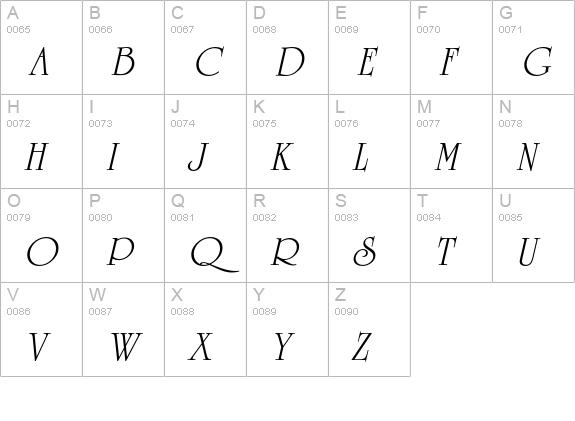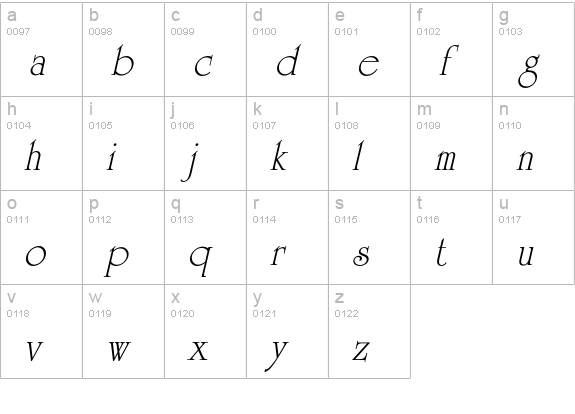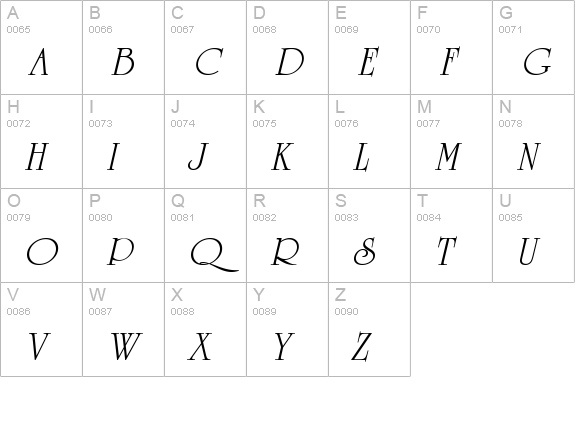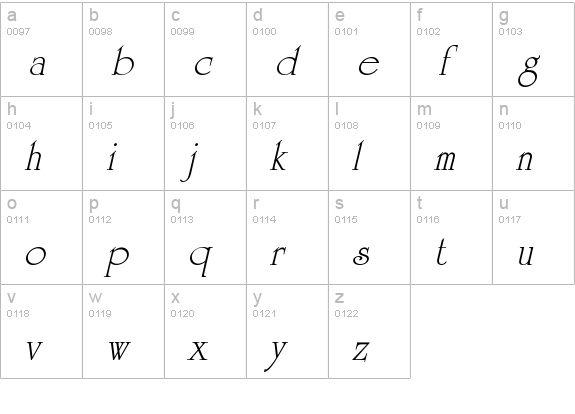
University Roman Std Italic is a distinctive, italic variant in the University typeface family \xE2\x80\x94 well suited to design and typography projects.
University Roman Std Italic is a timeless and elegant font that adds a touch of sophistication to any design project. With its slanted and graceful letterforms, this font effortlessly captures the essence of classic typography. Perfect for both print and digital media, University Roman Std Italic is ideal for conveying a sense of professionalism and refinement. Whether used in headlines, body text, or logos, this font exudes a sense of confidence and authority. One of the best things about University Roman Std Italic is that it is freely available to download at FontsMarket.com. Designers and enthusiasts alike can easily access this font and incorporate it into their creations without any cost. This makes it an accessible and valuable resource for anyone looking to elevate their design work. With its exquisite details and versatile nature, University Roman Std Italic is well-suited for a wide range of applications. From branding and advertising to editorial design and packaging, this font seamlessly blends tradition and modernity, making it a go-to choice for designers seeking to make a lasting impression. In conclusion, University Roman Std Italic is a sophisticated and versatile font that effortlessly combines classic elegance with contemporary design. Its availability as a free download at FontsMarket.com makes it an invaluable asset for designers and creatives looking to elevate their projects without breaking the bank.